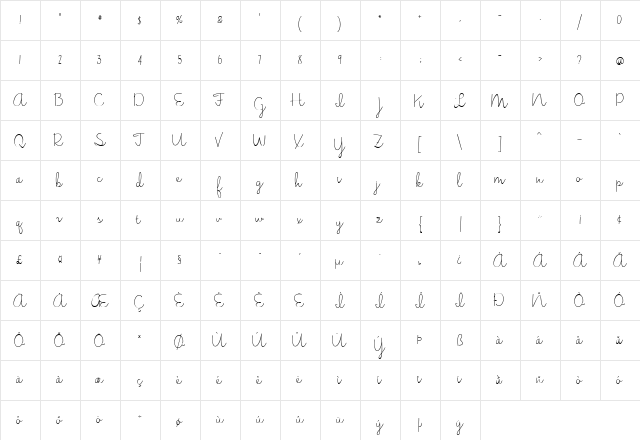
Jasmine Reminiscentse Light
| Foundry | Brittney Murphy |
| Designer | Brittney Murphy |
Design Context for Jasmine Reminiscentse Typeface
Jasmine Reminiscentse is a composed and adaptable typeface that performs quietly and consistently across a wide range of design contexts. Its slender proportions lend an understated elegance to any composition.